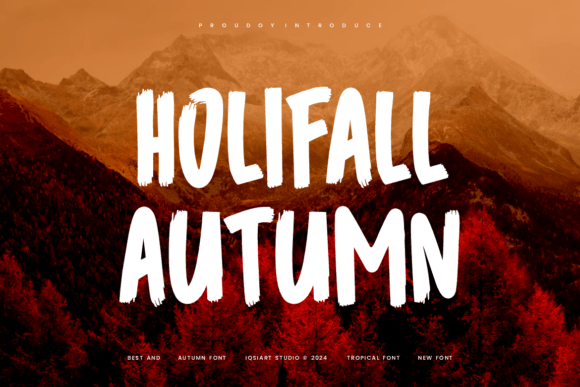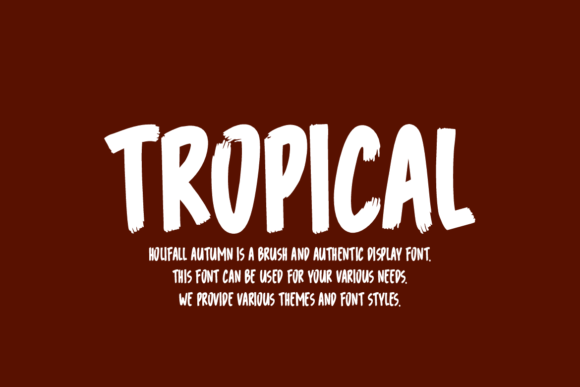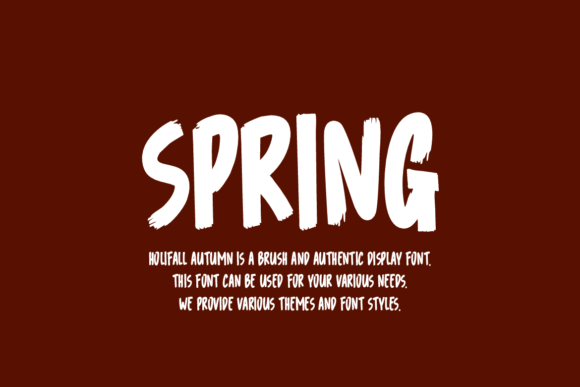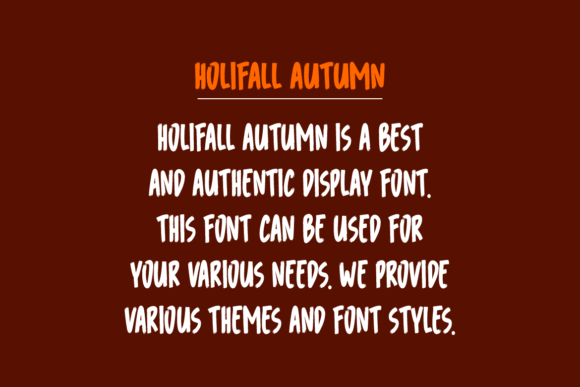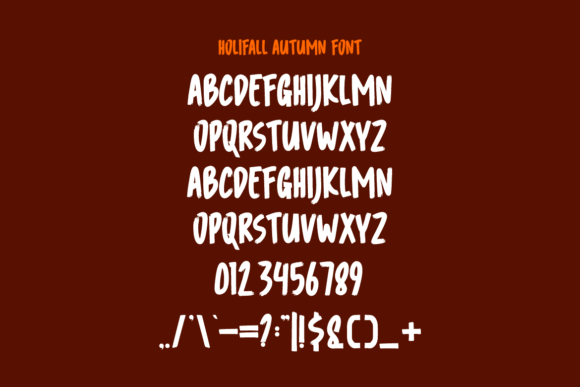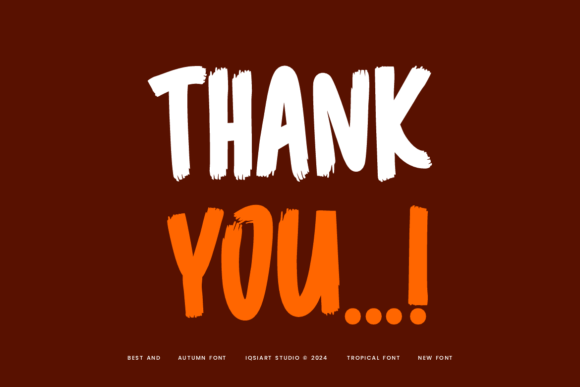
Cozy Up to Fall with the Perfect Font
As the leaves start to change and the air grows crisp, I find myself drawn to the warm, earthy tones of autumn. There’s something about the season that inspires creativity, and I’m sure I’m not alone in feeling a surge of inspiration to tackle new projects and try out new ideas. Whether it’s a cozy sweater, a pumpkin spice latte, or a beautiful leaf-covered landscape, autumn is the perfect time to get creative.
For designers looking to capture the essence of fall, the Holifall Autumn Font is a game-changer. This fun and bold font is inspired by the colors and feel of the season, with a playful style that’s perfect for autumn-themed projects, signs, or invitations. With its natural, brush-painted look, it’s the perfect way to add a warm and cozy touch to your designs.
Whether you’re a seasoned designer or just starting out, the Holifall Autumn Font is a valuable addition to your toolkit. Its unique style and autumnal charm make it a must-have for anyone looking to add a little seasonal magic to their projects.
- Unique Characteristics: The font features a warm, autumnal color palette with intricate details, creating a cozy and inviting atmosphere.
Designer Review: Holifall Autumn Font
I recently had the chance to work with the Holifall Autumn Font, and I must say, it’s a visually stunning addition to any design project. ✨ The font’s warm, earthy tones perfectly capture the essence of the autumn season. The subtle texture and organic feel of the letters really make it stand out.
One of the things I love about this font is its versatility. ✨ It’s perfect for creating invitations, posters, and even branding materials that scream autumn vibes. The font is also highly legible, making it easy to read even at smaller font sizes.
What Could Be Improved?
- ⚠️ Limited character set: The font doesn’t have a wide range of characters, which can be a problem when working on longer texts.
- ⚠️ Some letters may require manual adjustments: Due to the font’s organic design, some letters may require manual adjustments to align properly.
Overall, I’m quite impressed with the Holifall Autumn Font. While it has some limitations, its unique design and versatility make it a great addition to any designer’s toolkit. If you’re looking to create autumn-themed designs that stand out, I’d definitely recommend giving this font a try.
For optimal results, use Holifall Autumn Font for autumn-themed projects, invitations, and branding materials. To get the most out of the font, pair it with warm color schemes and natural textures.
Alternatives to Holifall Autumn Font
Playfair Display is a luxurious, high-end serif font ideal for use in titles, headings, and other high-impact text. It is particularly suitable for elegant, sophisticated designs and is often used in wedding invitations, luxury branding, and high-end advertising.
Compared to Holifall Autumn Font, Playfair Display is more elegant and refined, with a more formal tone. While Holifall Autumn Font has a rustic, autumnal feel, Playfair Display is more polished and sophisticated.
Great Vibes is a modern, elegant script font perfect for use in creative, artistic designs. It is ideal for titles, headings, and body text and is often used in wedding invitations, event branding, and creative advertising.
Compared to Holifall Autumn Font, Great Vibes is more modern and sleek, with a softer, more fluid feel. While Holifall Autumn Font has a rustic, autumnal feel, Great Vibes is more contemporary and artistic.